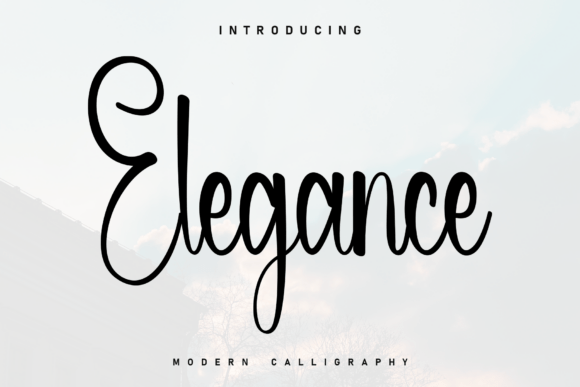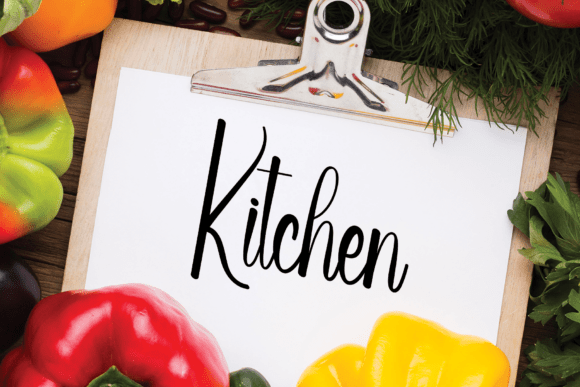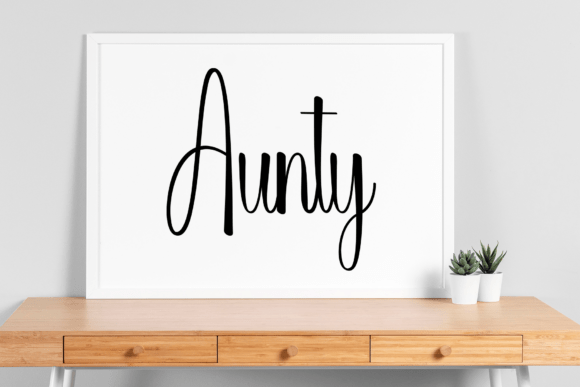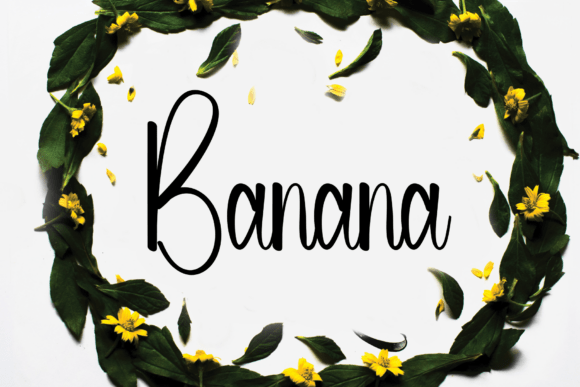
Elegance Script Font
Infuse your creative canvas with the lyrical charm of Elegance, a script that captures the soulful rhythm of human touch. Eschewing rigid structure for a spirited, undulating baseline, this typeface breathes a sense of playful grace and artisanal warmth into every composition. It’s the perfect choice for designers seeking to wrap their projects in an inviting, whimsical atmosphere that feels both intimate and effortlessly sophisticated.